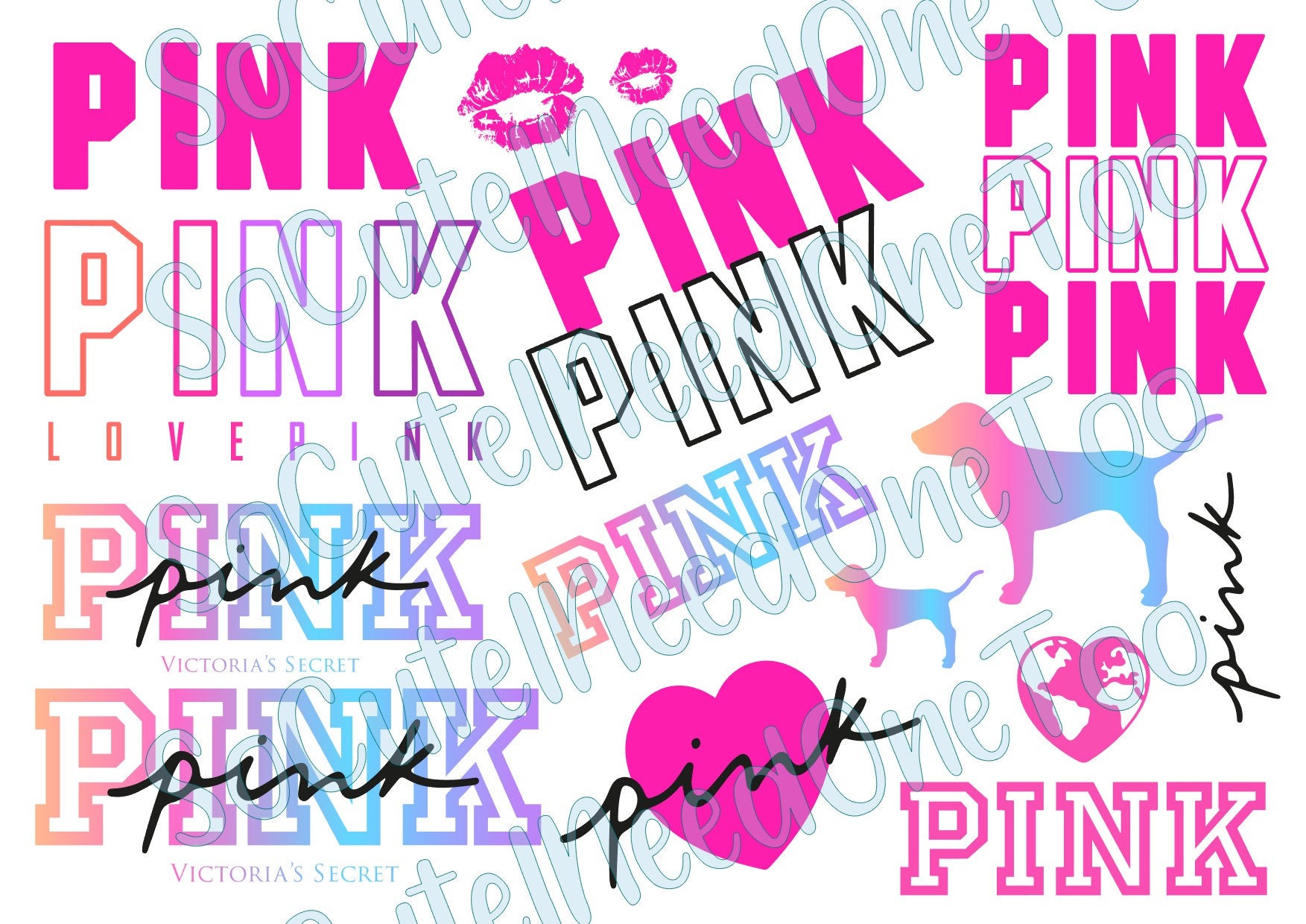
What Font Is Victoria's Secret Pink Logo . Archive of freely downloadable fonts. What font is similar to the victoria's secret logo? The victoria’s secret pink font is key to the brand’s iconic logo and overall aesthetic. It was founded by roy raymond in 1977. What font is used in the victoria’s secret logo? Forum → font identification → back to the list 2 posts victorias secret pink font #1 armygyal quote sep 05, 2018 at 05:35 i am sure. The font i'm looking for is in the bold campus tour 2017 text, as well as in the space that says check it out. You can purchase this font from the link below. Victoria’s secret is the largest american retailer of lingerie. With its playful and feminine design, the pink font perfectly captures the youthful. The time is now 16:06. The font used for the logo of the company is probably trajan designed by carol twombly in. “trajan pro regular” is the font used in the victoria’s secret logo. This font is designed by carol twombly and published by adobe. What font is victoria’s secret logo?
The font used for the logo of the company is probably trajan designed by carol twombly in. The victoria’s secret pink font is key to the brand’s iconic logo and overall aesthetic. “trajan pro regular” is the font used in the victoria’s secret logo. What font is similar to the victoria's secret logo? What font is victoria’s secret logo? You can purchase this font from the link below. The font i'm looking for is in the bold campus tour 2017 text, as well as in the space that says check it out. This font is designed by carol twombly and published by adobe. With its playful and feminine design, the pink font perfectly captures the youthful. Archive of freely downloadable fonts.
Victoria's Secret PINK Bullring & Grand Central What Font Is Victoria's Secret Pink Logo The font i'm looking for is in the bold campus tour 2017 text, as well as in the space that says check it out. The victoria’s secret pink font is key to the brand’s iconic logo and overall aesthetic. It was founded by roy raymond in 1977. Archive of freely downloadable fonts. What font is similar to the victoria's secret. What Font Is Victoria's Secret Pink Logo.
Victoria's Secret Logo Wallpaper What Font Is Victoria's Secret Pink Logo The font i'm looking for is in the bold campus tour 2017 text, as well as in the space that says check it out. What font is victoria’s secret logo? The font used for the logo of the company is probably trajan designed by carol twombly in. You can purchase this font from the link below. Archive of freely downloadable. What Font Is Victoria's Secret Pink Logo.
Love Pink Svg File Cricut Silhouette Victoria secret pink logo, Vs What Font Is Victoria's Secret Pink Logo Forum → font identification → back to the list 2 posts victorias secret pink font #1 armygyal quote sep 05, 2018 at 05:35 i am sure. What font is similar to the victoria's secret logo? With its playful and feminine design, the pink font perfectly captures the youthful. Archive of freely downloadable fonts. The font used for the logo of. What Font Is Victoria's Secret Pink Logo.
PINK Sticker Love Pink 1 (1) 4 Pink wallpaper iphone, Victoria What Font Is Victoria's Secret Pink Logo This font is designed by carol twombly and published by adobe. Victoria’s secret is the largest american retailer of lingerie. You can purchase this font from the link below. What font is similar to the victoria's secret logo? The time is now 16:06. The victoria’s secret pink font is key to the brand’s iconic logo and overall aesthetic. The font. What Font Is Victoria's Secret Pink Logo.
Free 97 Victoria Secret Pink Logo Svg Free SVG PNG EPS DXF File Free SVG What Font Is Victoria's Secret Pink Logo What font is victoria’s secret logo? With its playful and feminine design, the pink font perfectly captures the youthful. “trajan pro regular” is the font used in the victoria’s secret logo. Victoria’s secret is the largest american retailer of lingerie. The victoria’s secret pink font is key to the brand’s iconic logo and overall aesthetic. What font is used in. What Font Is Victoria's Secret Pink Logo.
Victoria's Secret Logo, symbol, meaning, history, PNG, brand What Font Is Victoria's Secret Pink Logo The font used for the logo of the company is probably trajan designed by carol twombly in. “trajan pro regular” is the font used in the victoria’s secret logo. The font i'm looking for is in the bold campus tour 2017 text, as well as in the space that says check it out. Victoria’s secret is the largest american retailer. What Font Is Victoria's Secret Pink Logo.